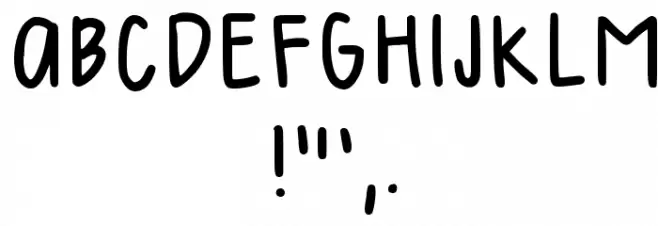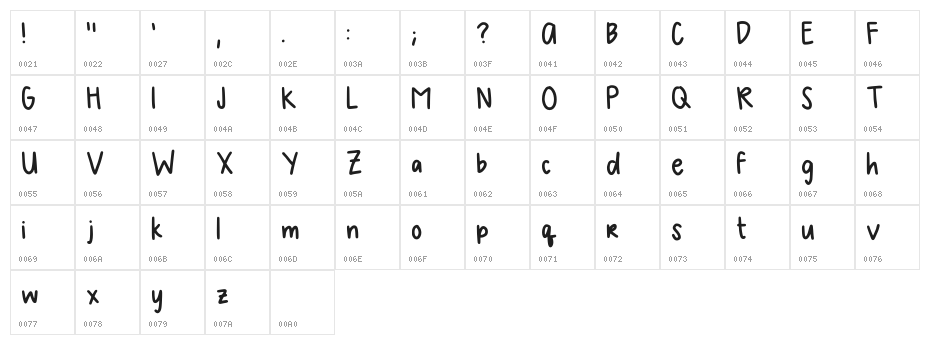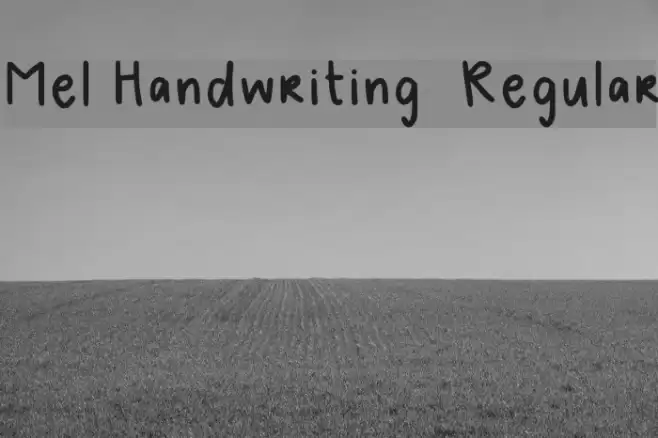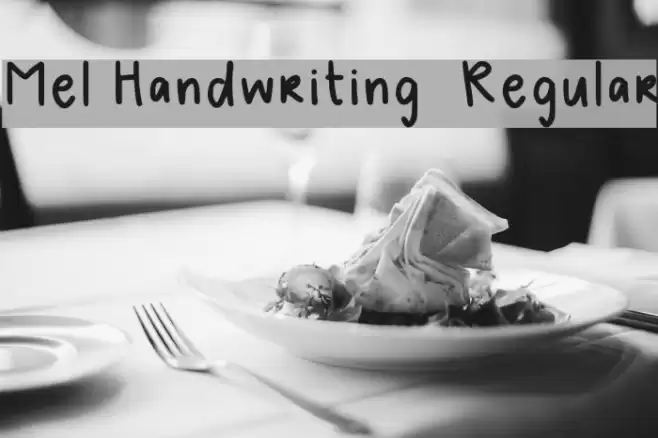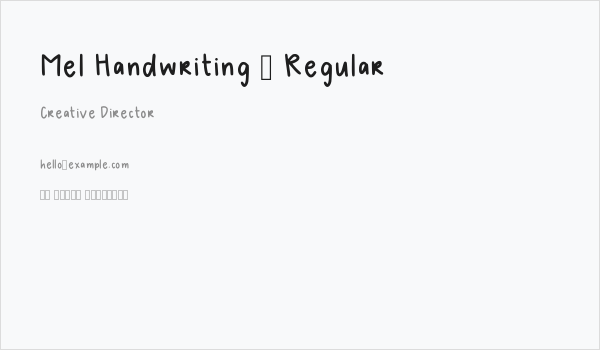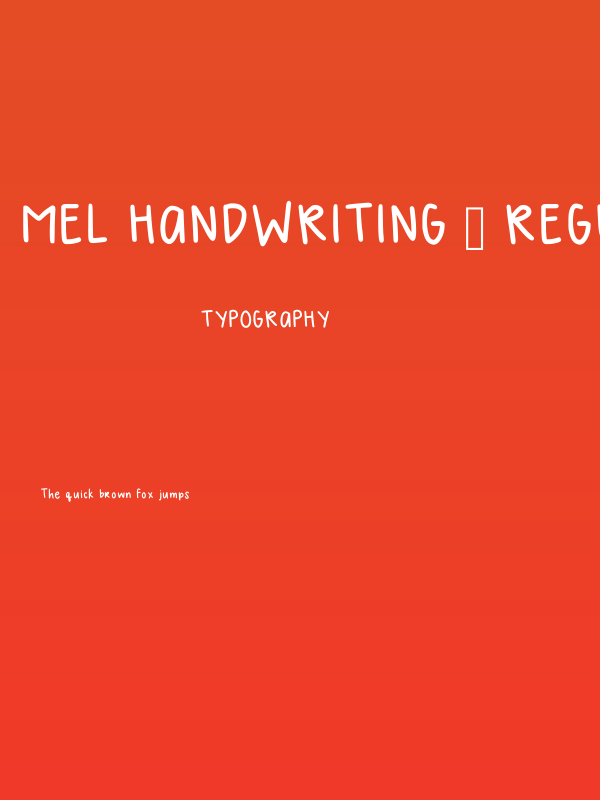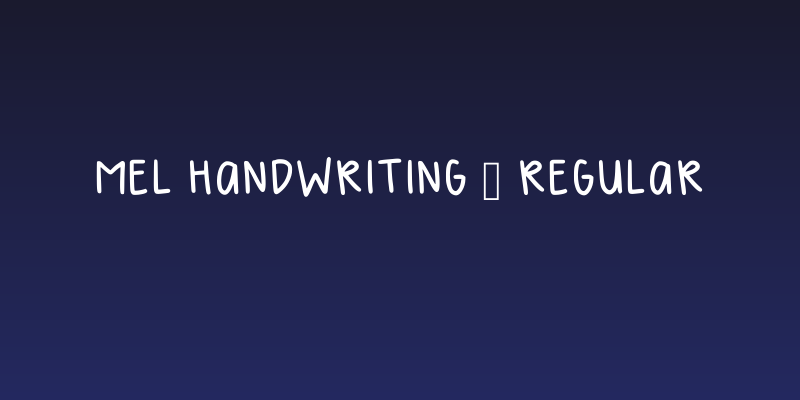
Mel Handwriting 2 Regular Font
Mel Handwriting 2 Regular Description
This font exudes a playful and casual handwritten style, characterized by its rounded and smooth letterforms. The strokes are consistent in thickness, giving it a uniform appearance that enhances readability. The letters are slightly tilted, adding a dynamic and informal touch. The overall design is approachable and friendly, making it suitable for projects that require a personal and human touch. The font maintains a consistent baseline with moderate ascenders and descenders, ensuring clarity and balance across all characters.
| Use Case | Headlines, Informal text, Personal projects |
| Proposed Projects | Ideal for greeting cards, personal blogs, children's books, and informal branding. |